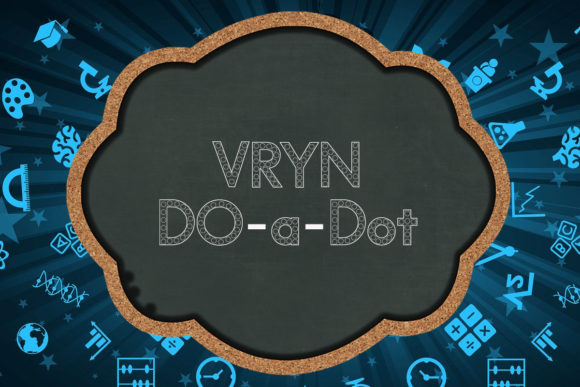
Welcome to the world of Do a Dot Font, a decorative masterpiece that will transform your digital creations into captivating masterpieces. Step into a realm where creativity knows no bounds, and let your imagination soar with this remarkable font, designed by the talented Rajeshkannan Mj.
Do a Dot Font is not merely a collection of characters; it's an artistic journey waiting to be embarked upon. Each letter, each symbol, each glyph is meticulously crafted to evoke emotions, convey messages, and leave an unforgettable impression on your audience. Whether you're a seasoned designer or just starting your creative adventure, Do a Dot Font is your passport to a world of limitless possibilities.
With a stroke of elegance and a touch of playfulness, Do a Dot Font adds a spark of individuality to your projects. Whether you're designing logos, crafting social media posts, creating eye-catching headlines, or simply adding a personal touch to your digital correspondence, this font is your secret weapon to stand out from the crowd.
Do a Dot Font is more than just a font; it's an invitation to explore the depths of your imagination. Its unique design elements, inspired curves, and intricate details will ignite your creativity and bring your visions to life. Unleash your inner artist and let Do a Dot Font guide you on a journey of self-expression and artistic fulfillment.